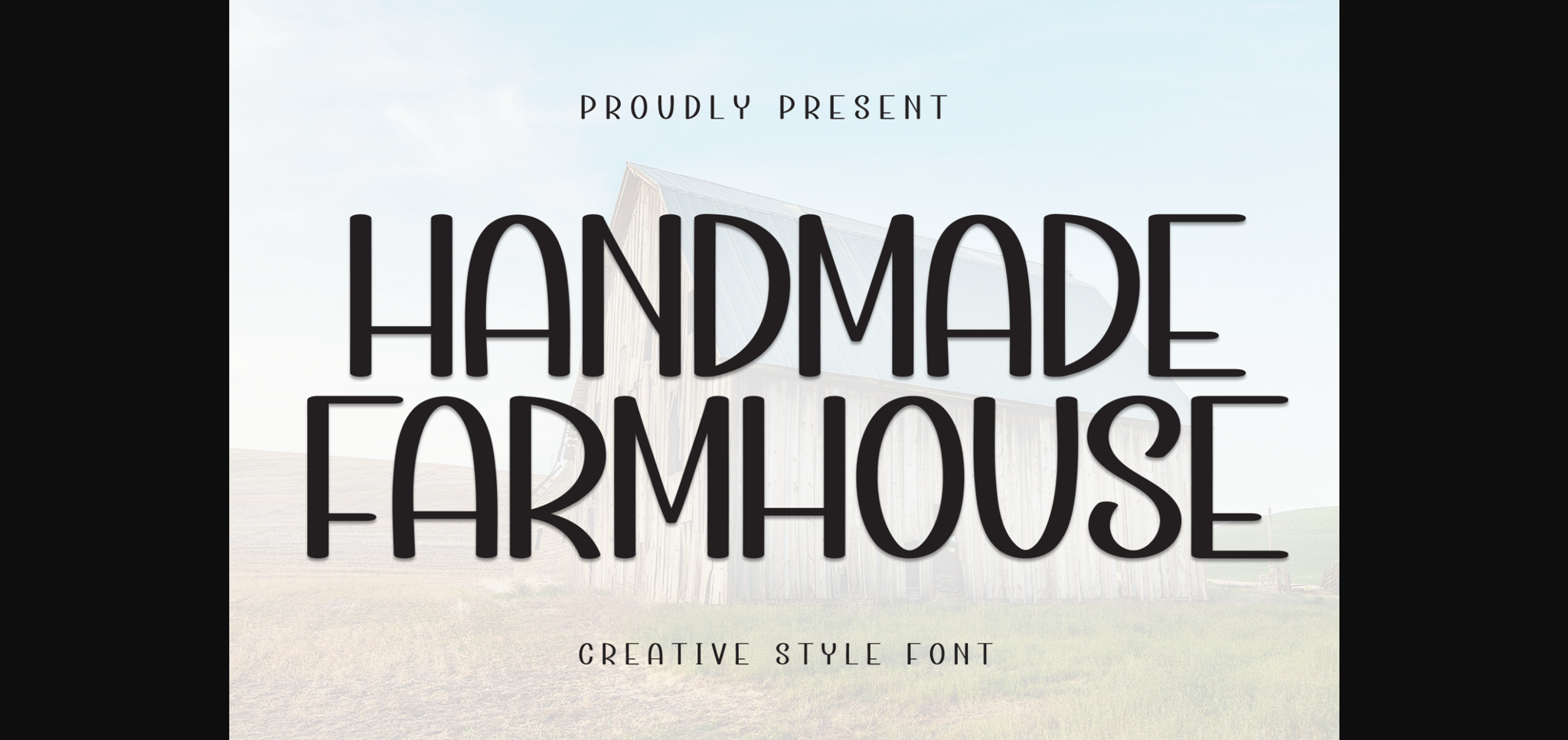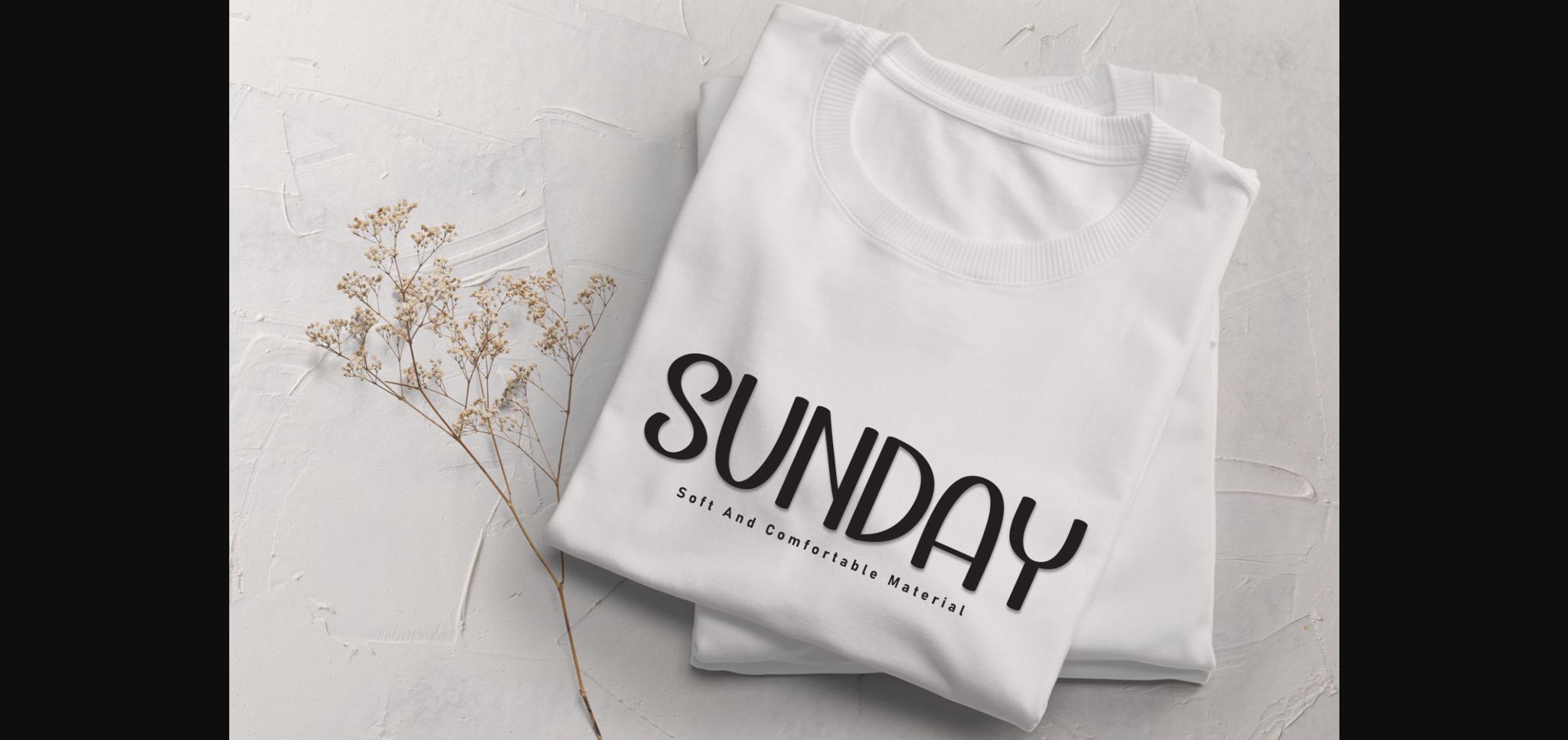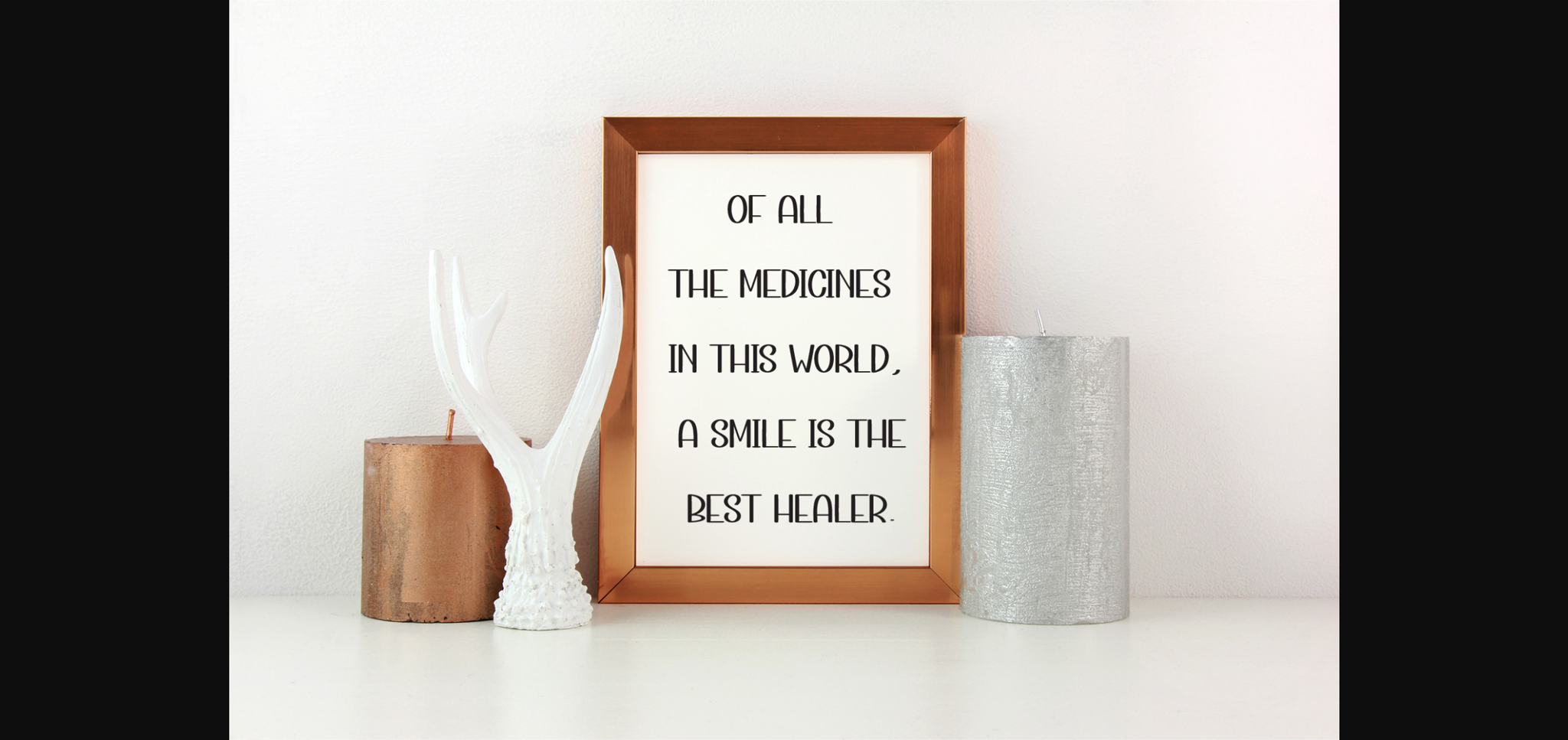
Handmade Farmhouse Font
About Handmade Farmhouse Font
Handmade Farmhouse is a friendly sans-serif font that effortlessly combines approachability with clarity. Its balanced letterforms and subtle curves create a welcoming and versatile aesthetic. Perfect for projects requiring a warm and inviting touch, Handmade Farmhouse adds a friendly, modern flair to your creative endeavors.